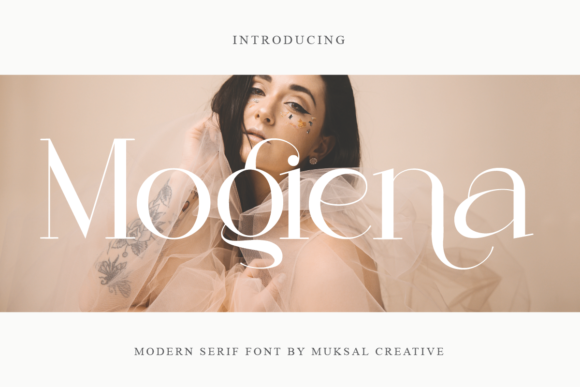
Unleash the captivating charm of Mogiena, a captivating serif font that will ignite your designs with its timeless elegance. Crafted by the renowned Muksal Creative, Mogiena embodies the essence of modern typography, making it an ideal choice for crafting logos that leave a lasting impression.
Immerse yourself in the world of Mogiena, where each letterform dances with grace and sophistication. Its meticulously designed curves and sharp edges create a striking visual impact, ensuring your logo stands out from the crowd. With Mogiena, you hold the key to unlocking a universe of creative possibilities.
But Mogiena is more than just a pretty face; it's a font that empowers you to express your brand's unique identity. Its PUA encoding grants you effortless access to a treasure trove of glyphs and swashes, giving you the freedom to add a touch of personal flair to your designs.
Picture your logo adorned with Mogiena's exquisite serifs, each stroke a testament to the artistry and dedication that went into its creation. It's a font that commands attention, inviting viewers to delve into the depths of your brand's story.
So, why settle for ordinary when you can embrace the extraordinary? Choose Mogiena, the font that will transform your logo into a beacon of sophistication and style. Let its timeless appeal ignite your designs and captivate the hearts of all who behold it.